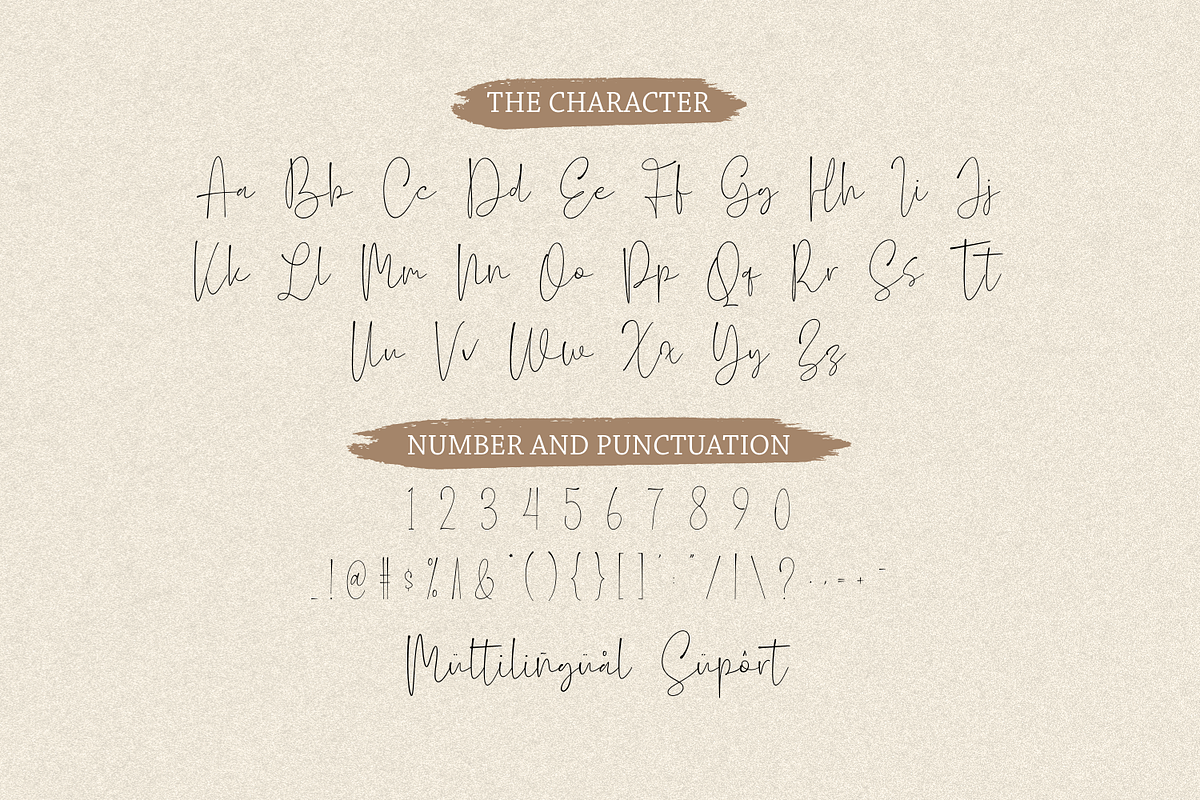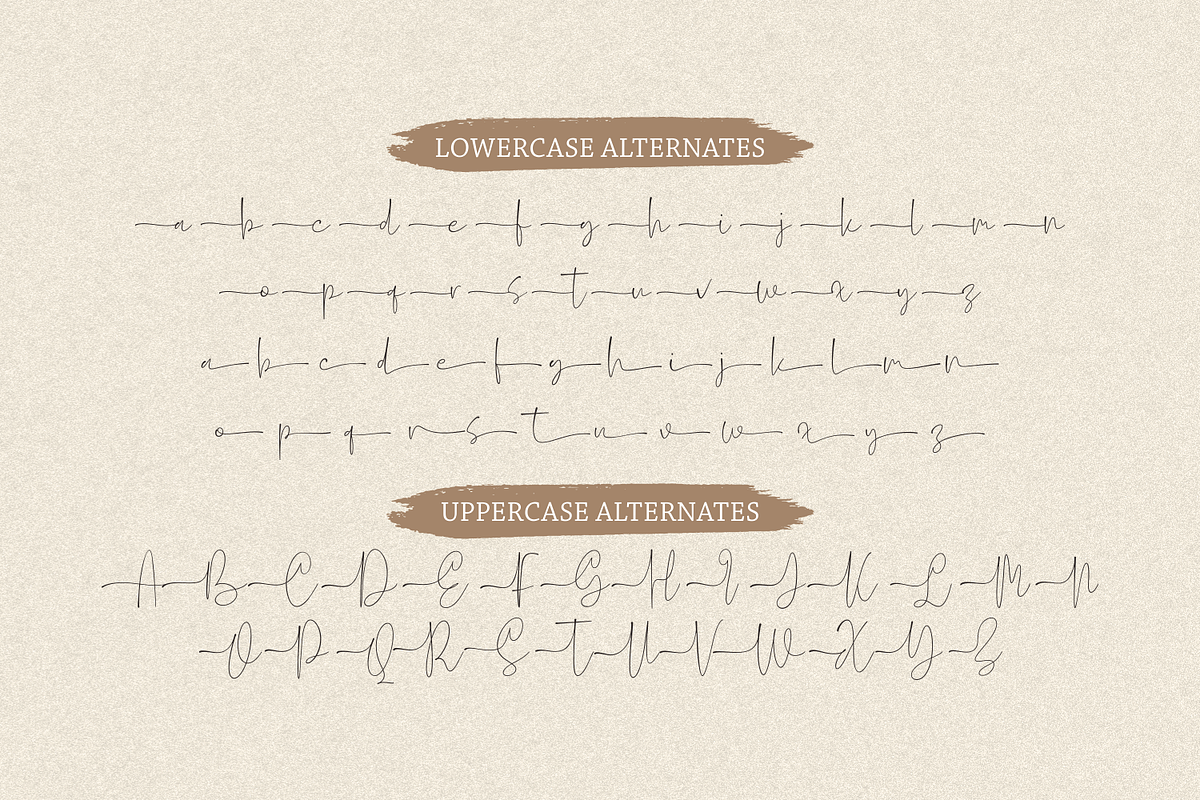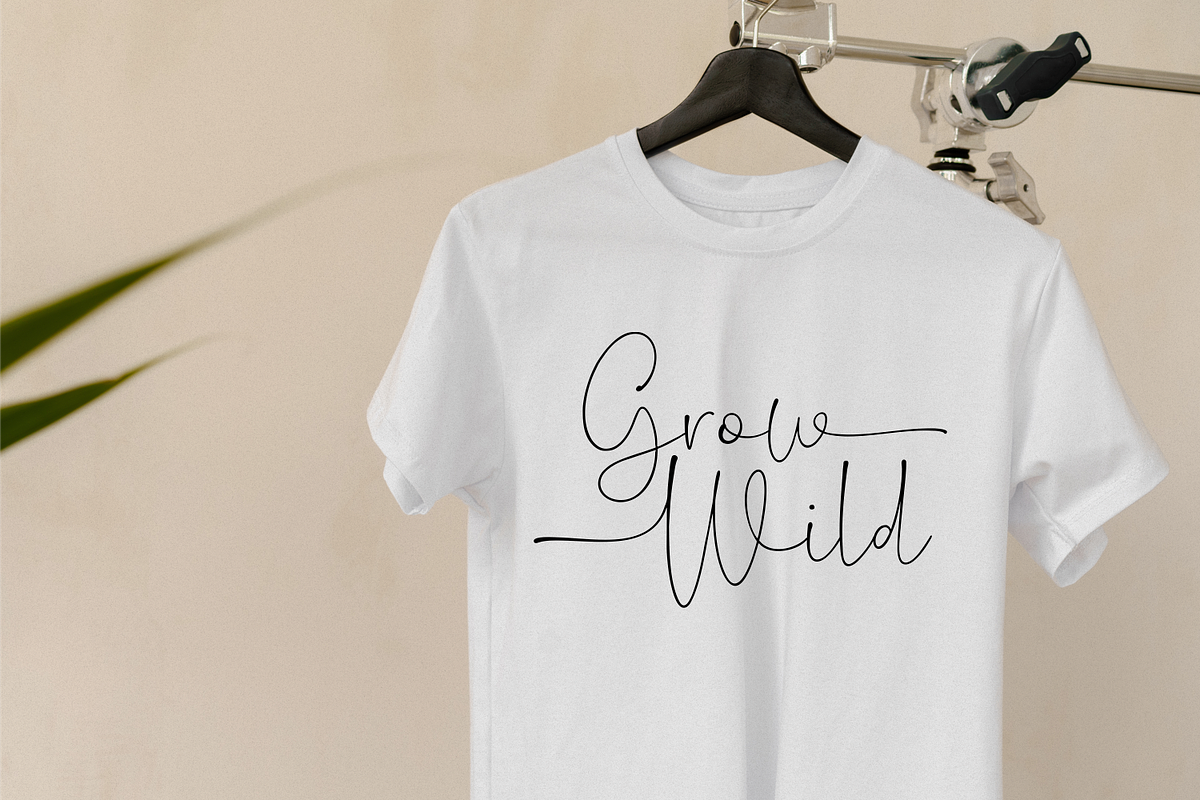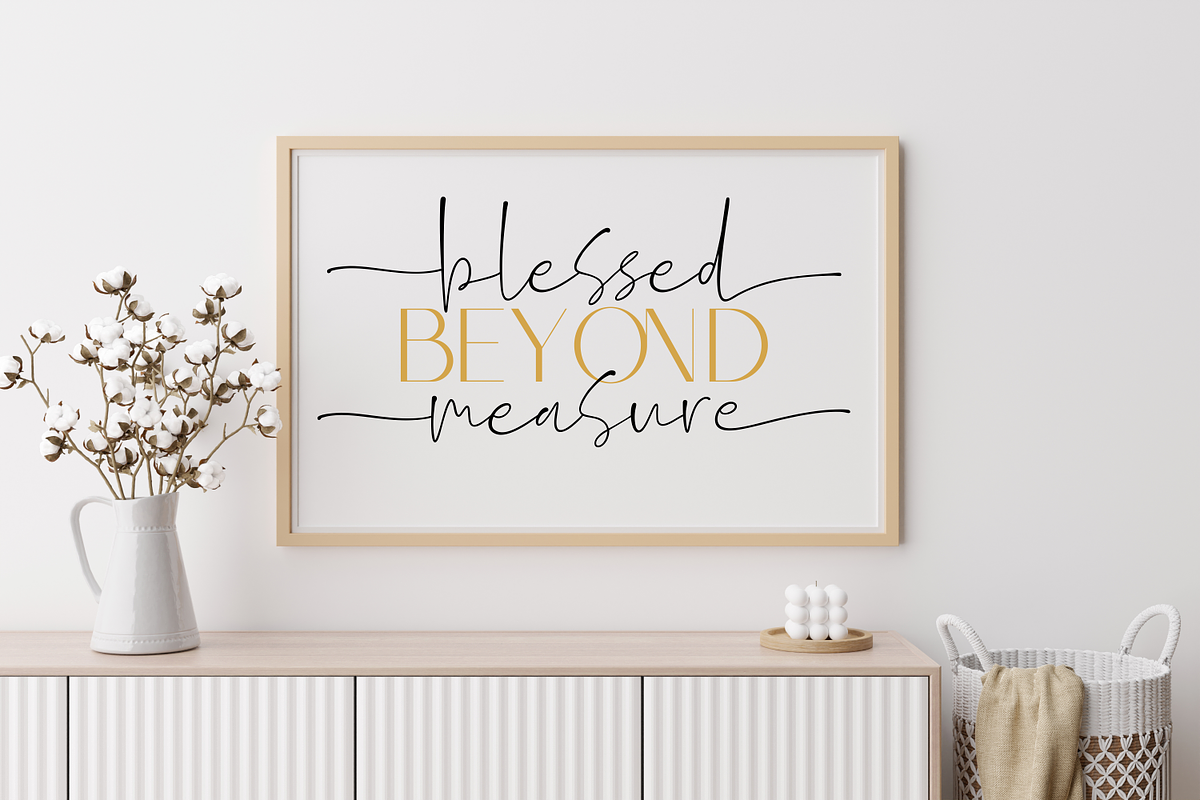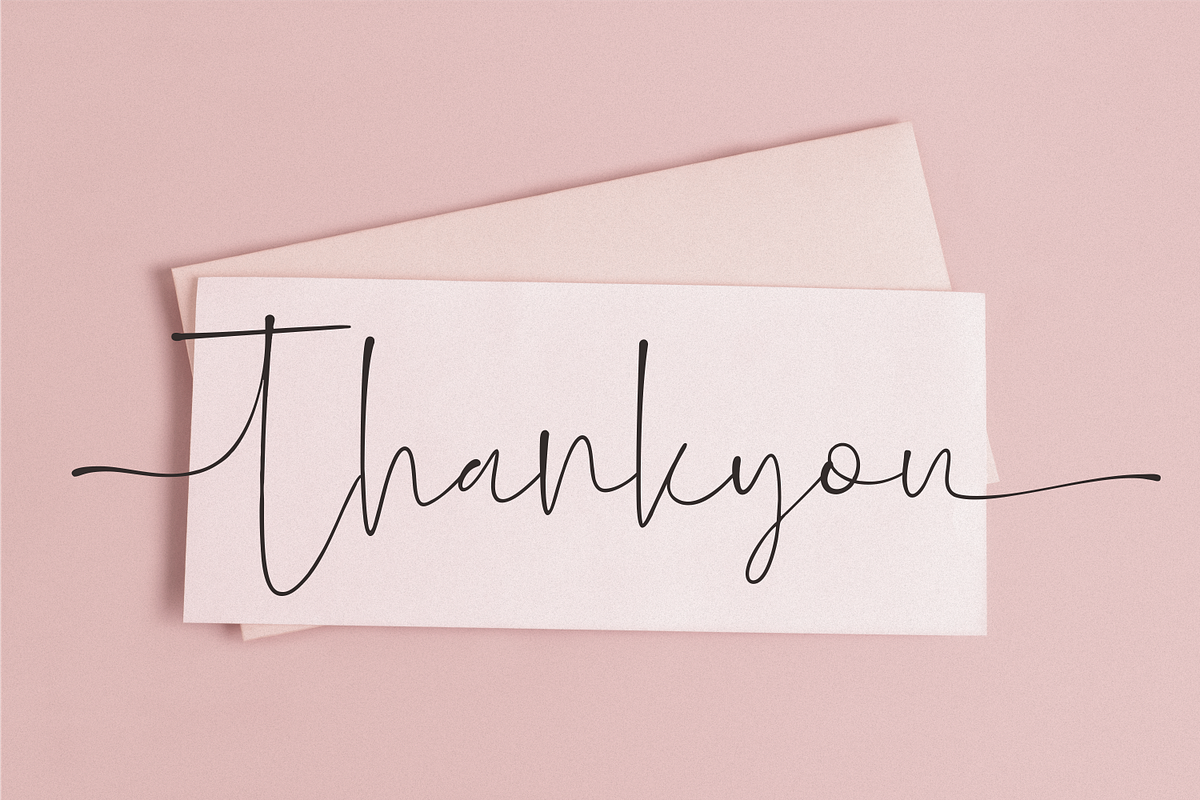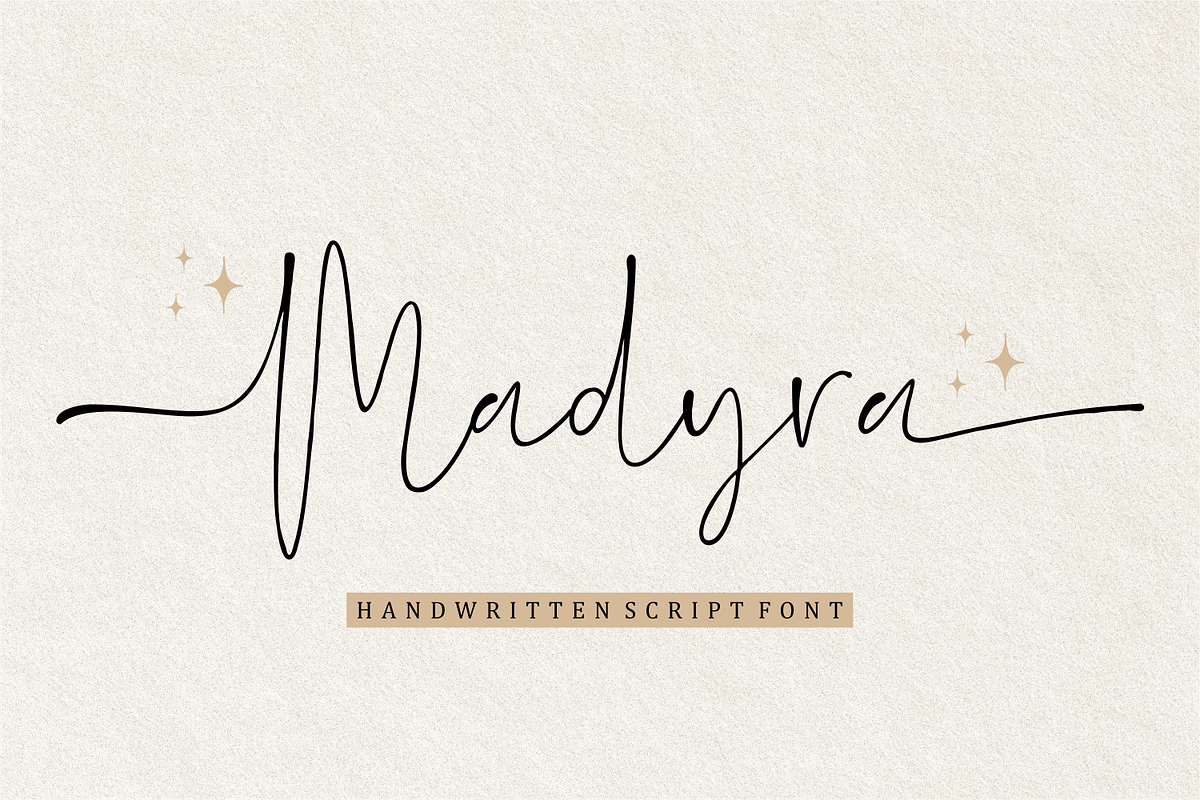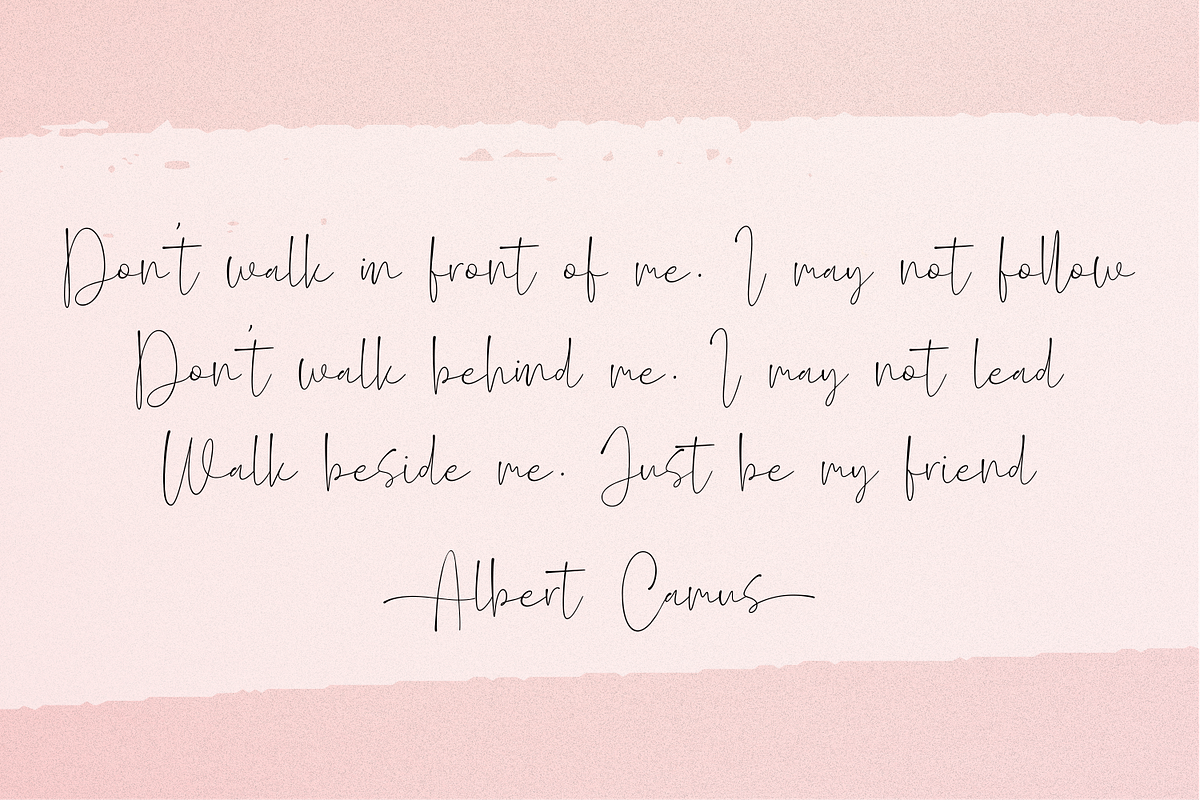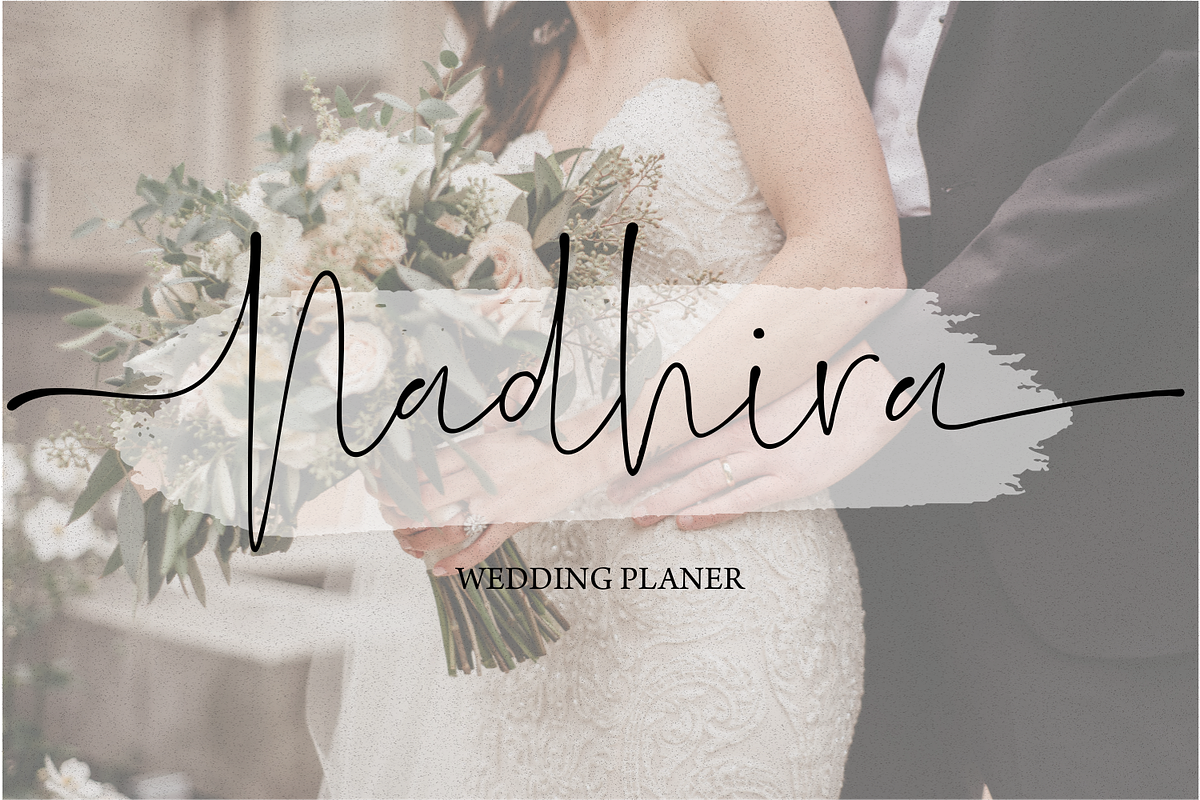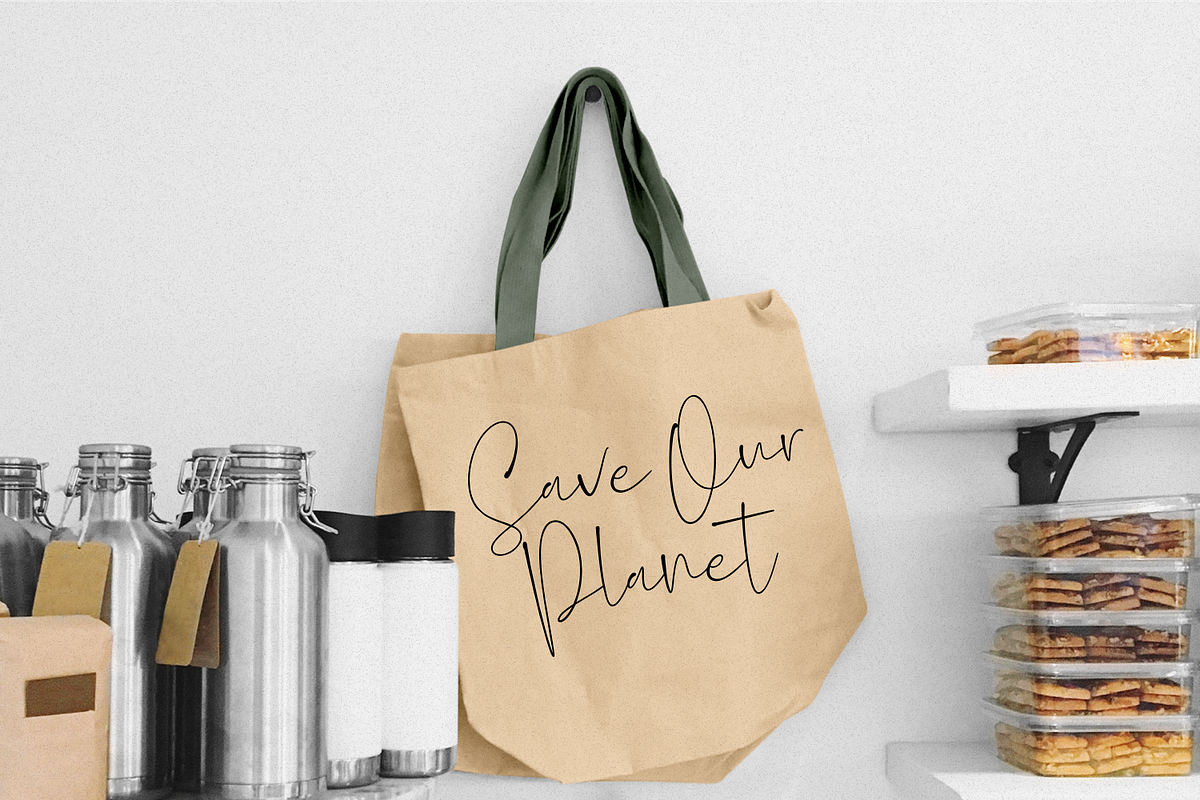
Madyra Monoline Script
Introducing Madyra by Forberas
Modern and beautiful handwritten script font! Great for wedding greeting cards, logos, branding materials, Invitation, business cards, quotes, posters, Cricut artwork and more!